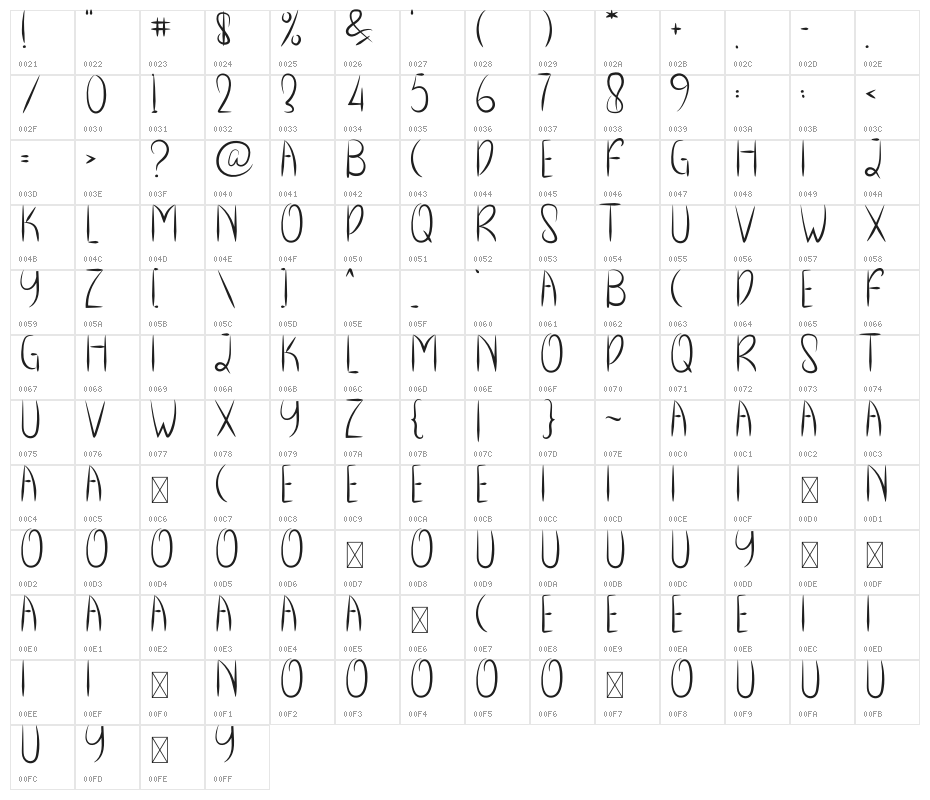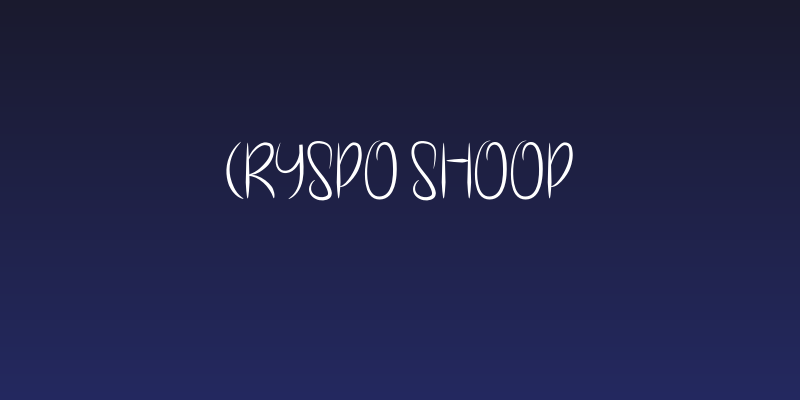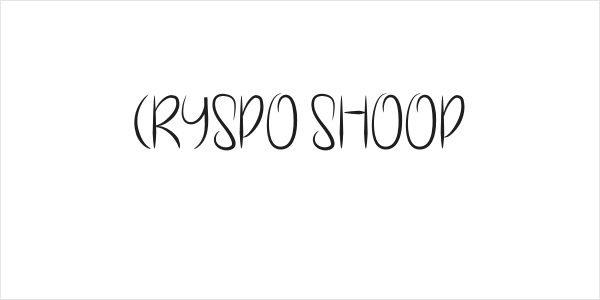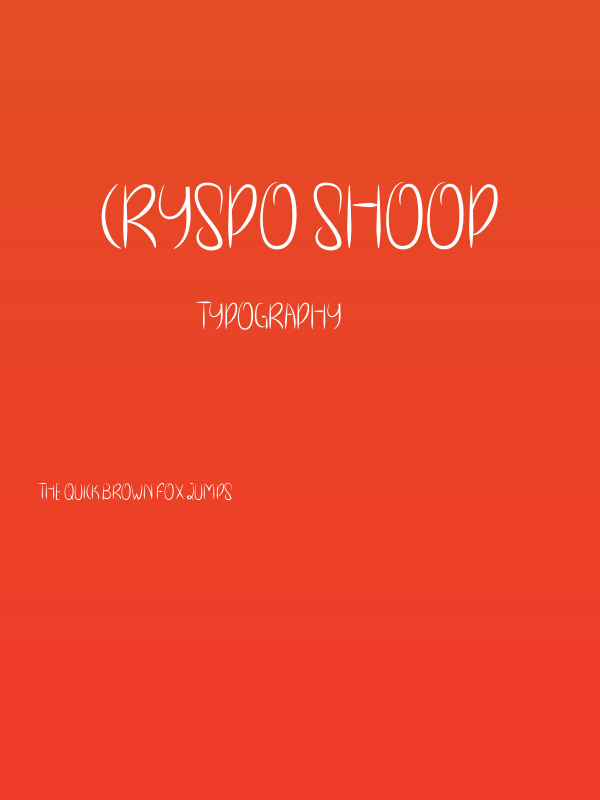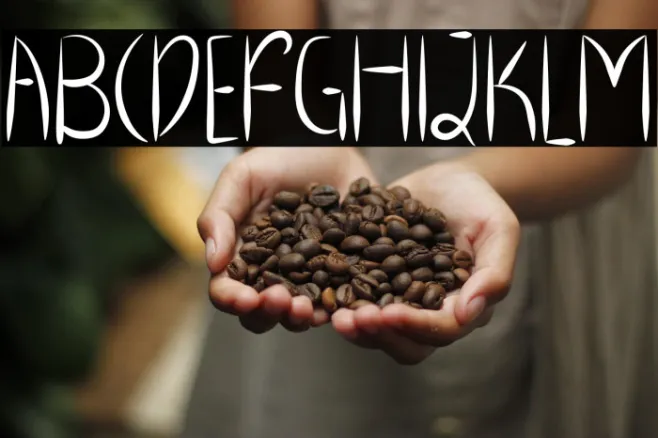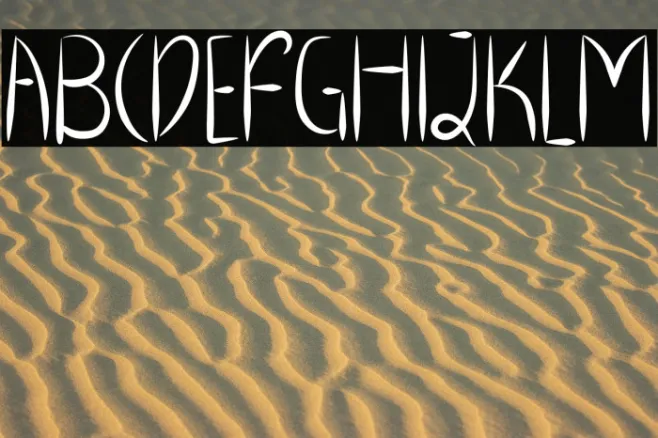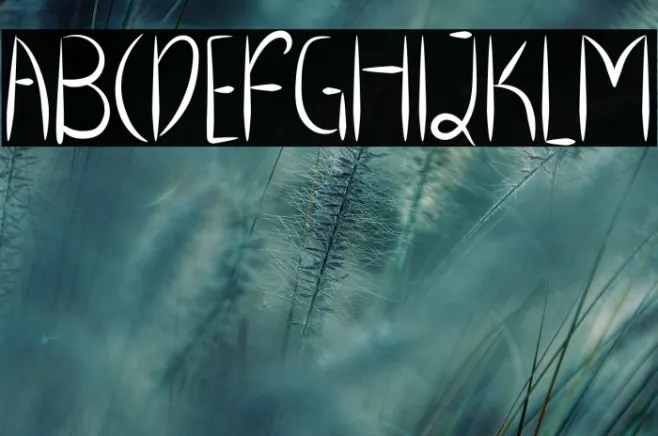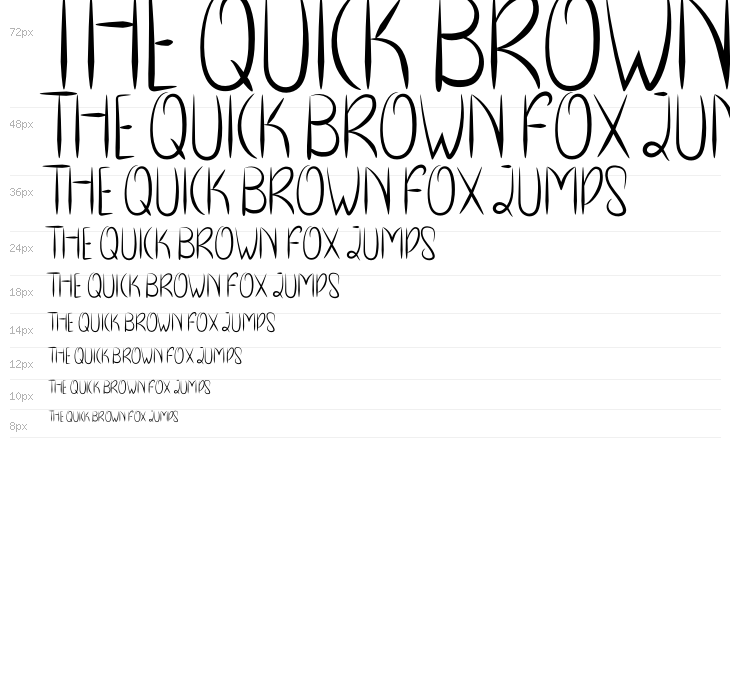
Cryspo Shoop Font
Cryspo Shoop Description
This font features a unique, artistic style with elongated, narrow characters that exhibit a high contrast between thick and thin strokes. The letters have a hand-drawn quality, with sharp, pointed serifs and an overall fluid, dynamic appearance. The uppercase and lowercase letters maintain a consistent style, with the uppercase being more pronounced and the lowercase slightly more subdued. Numbers and special characters follow the same design principles, ensuring a cohesive look across all glyphs. This font's distinctive style makes it stand out, offering a blend of elegance and creativity.
| Overall Style | Artistic, Creative |
| Proposed Projects | Ideal for creative projects such as posters, album covers, and branding materials that require a distinctive and artistic touch. |